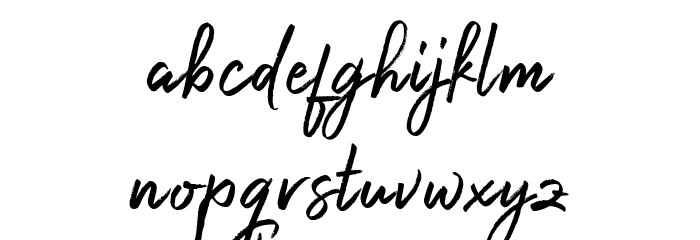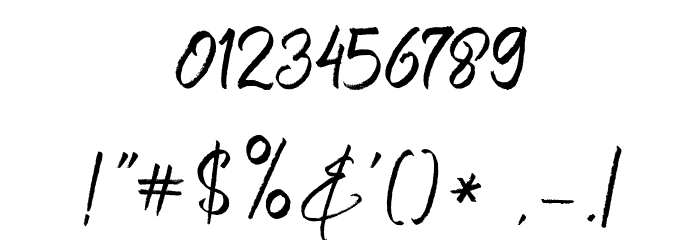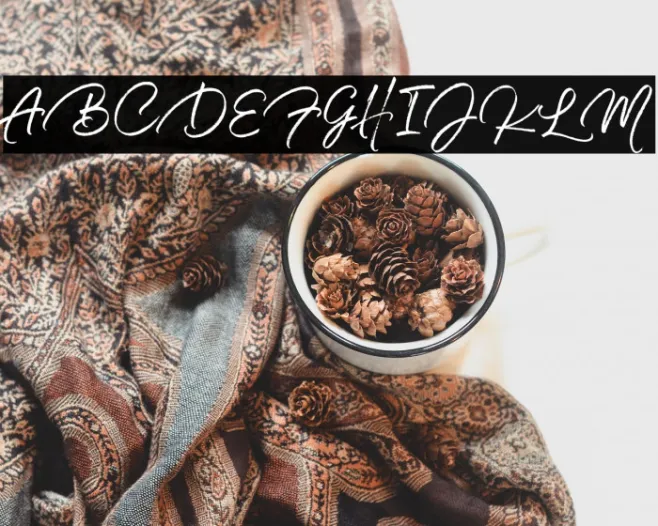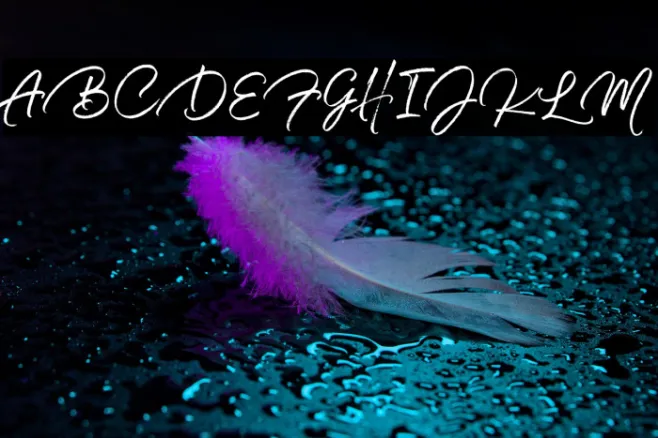
Harista Font
This font features an elegant and flowing script style, characterized by its smooth, cursive letterforms that mimic natural handwriting. The uppercase letters are slightly more ornate, with graceful loops and swashes, while the lowercase letters maintain a consistent, fluid motion. The numerals and special characters complement the overall style, maintaining the same handwritten aesthetic. This font exudes a sense of sophistication and personal touch, making it ideal for projects that require a humanistic and artistic feel.
An elegant, flowing script font with a natural handwritten style.
- Font: Harista
- Proposed Projects: Ideal for wedding invitations, greeting cards, personal branding, and artistic projects.
- Category: Script
- Overall Style: Elegant, Artistic
- Use Case: Logos, Invitations, Personal Branding